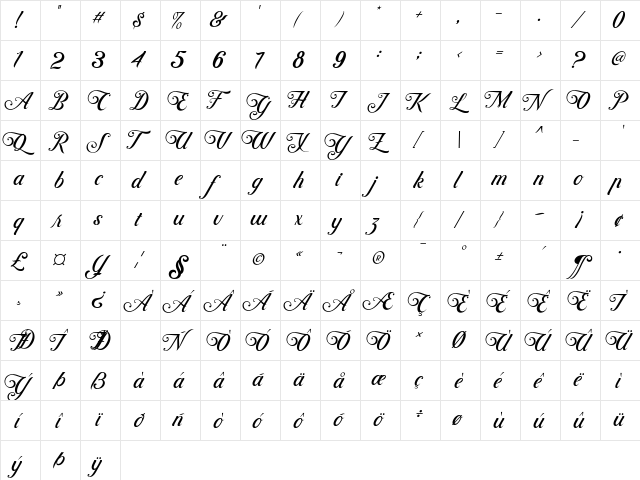
Controwell Script Regular
Design Context for Controwell Script Typeface
Controwell Script brings a calligraphic fluidity to the page — its connecting strokes and expressive curves give it an unmistakably human quality.
Font Pairing: Combine Controwell Script with a simple geometric sans for maximum contrast — the tension between flowing curves and clean structure is a classic typographic pairing.
Pro Tip: Pair Controwell Script with a clean sans-serif for supporting text. The contrast between fluid script and geometric structure creates an elegant typographic hierarchy.